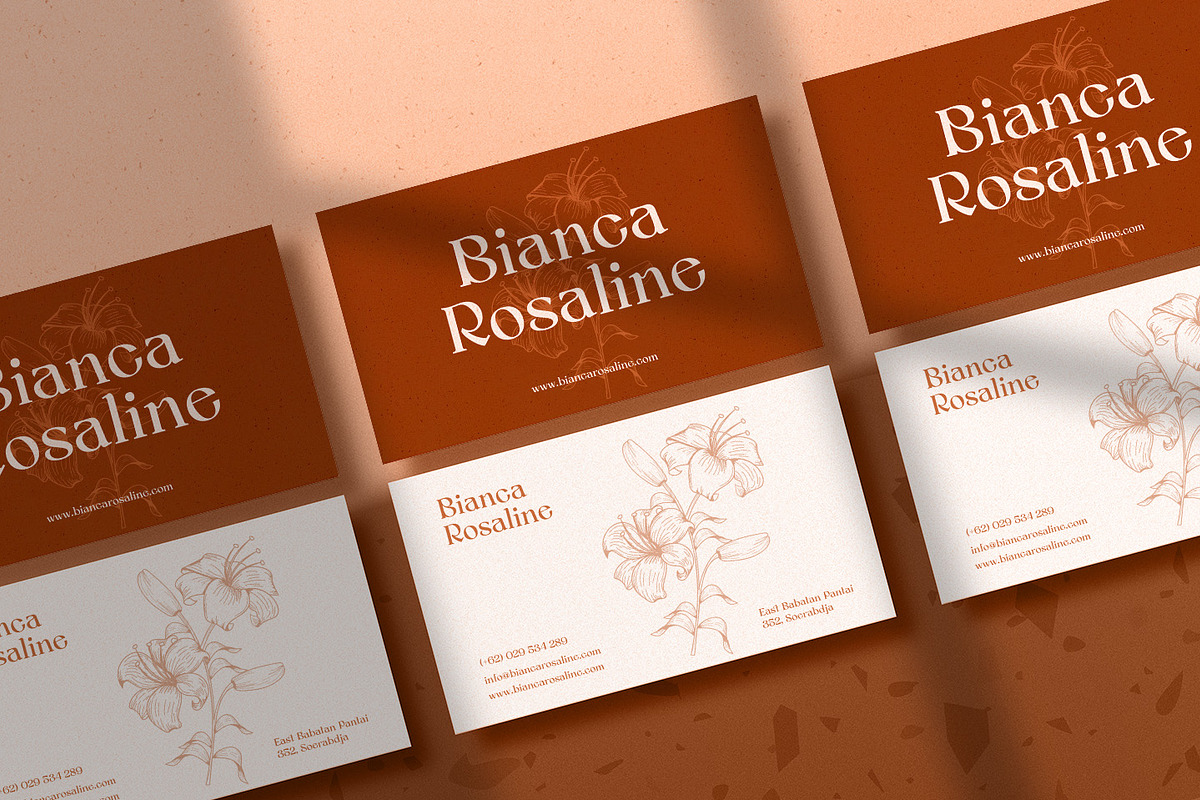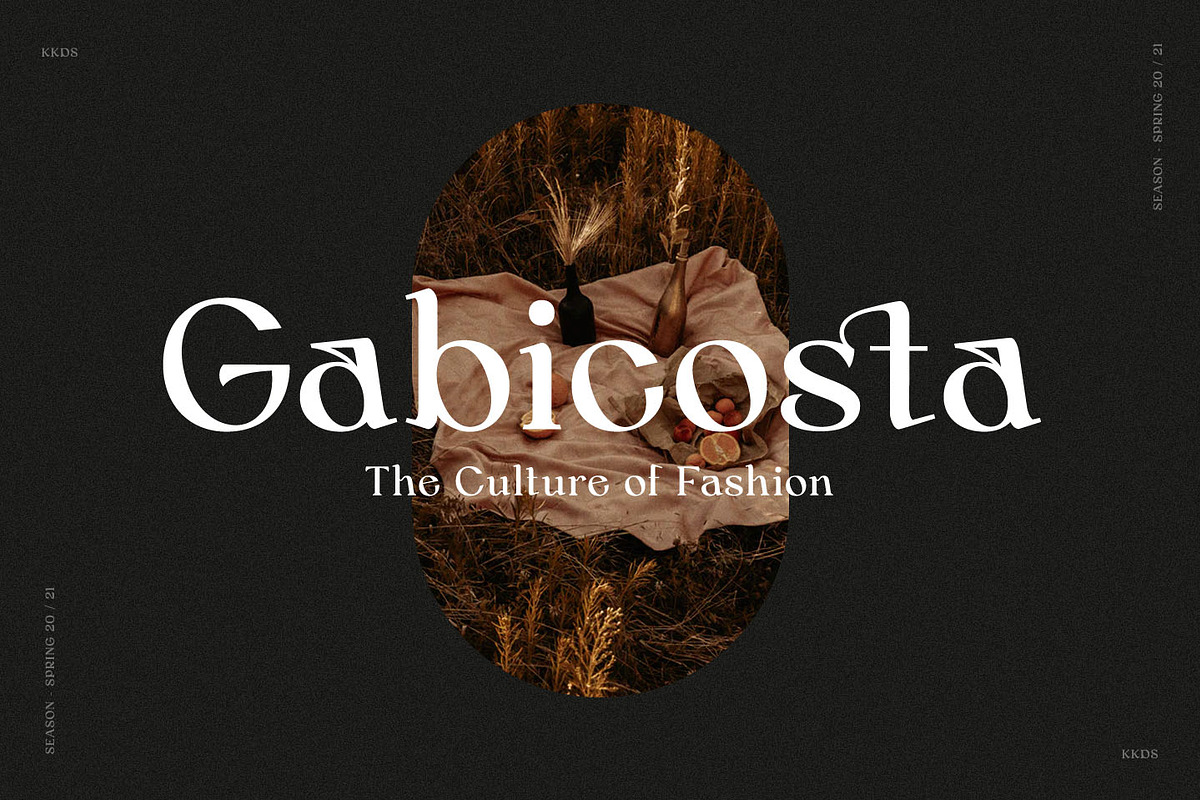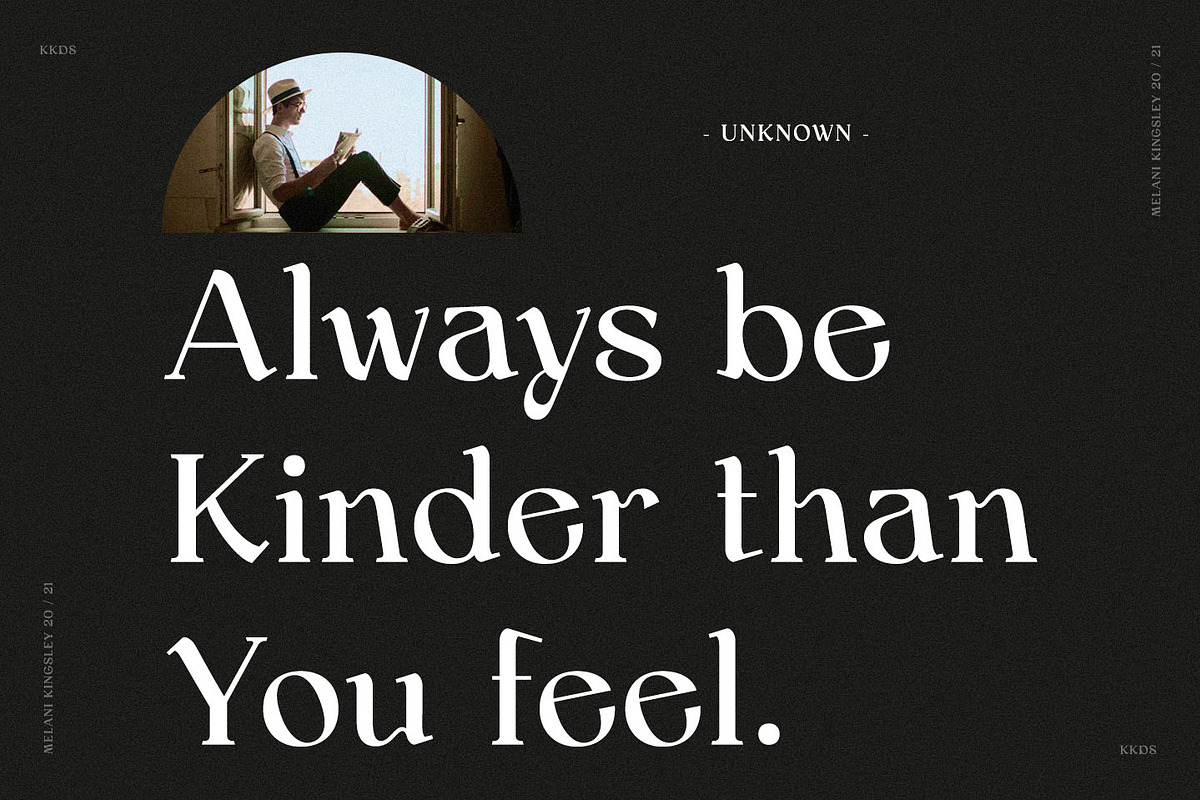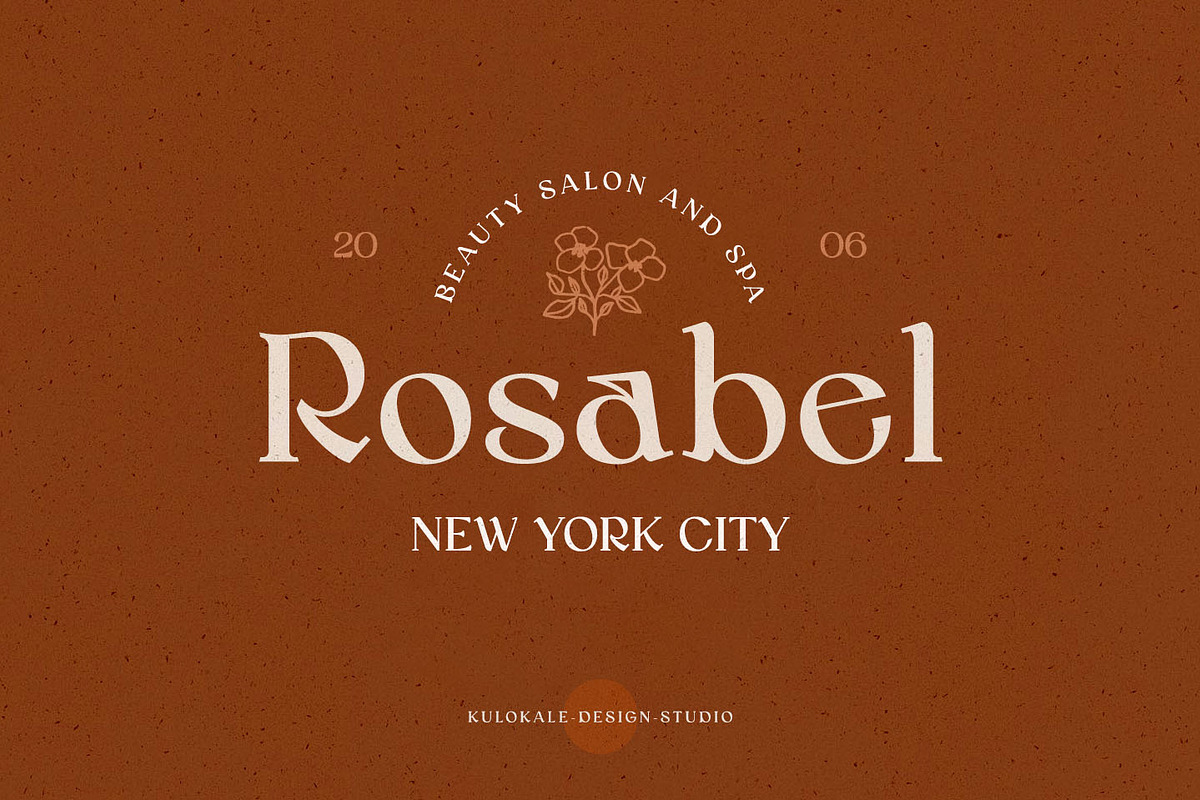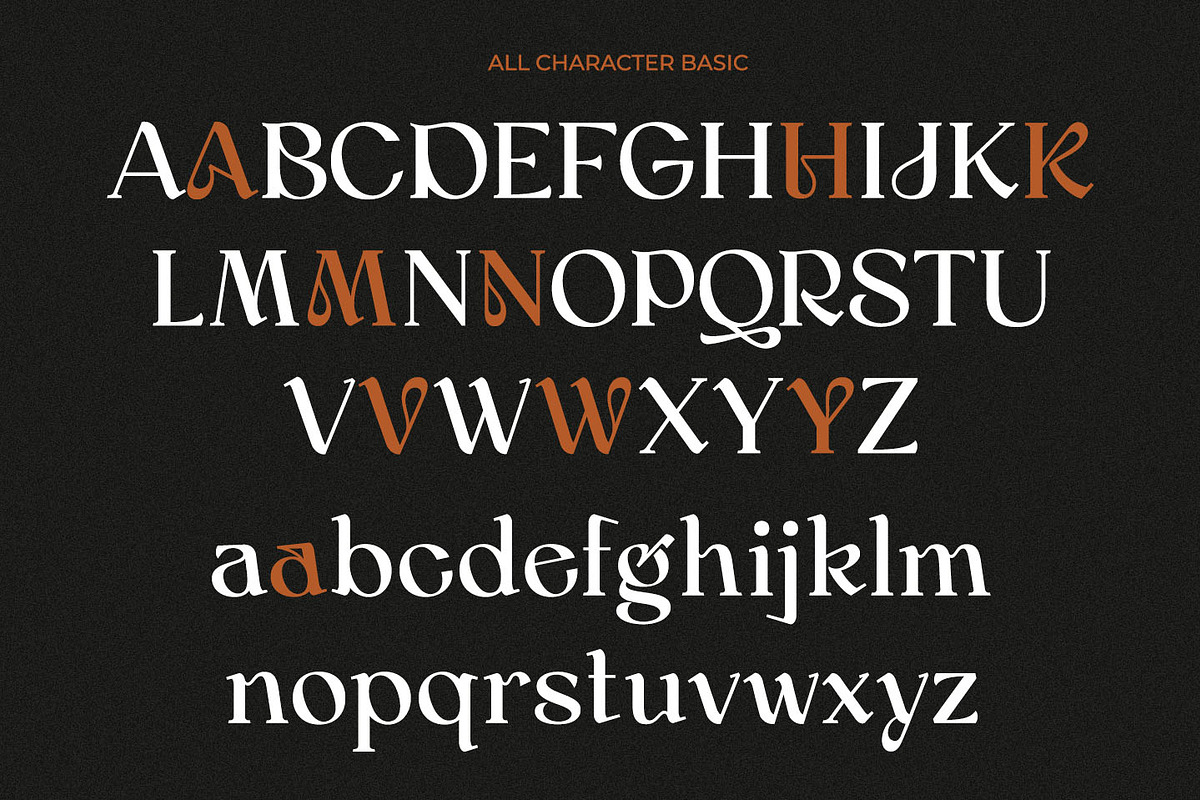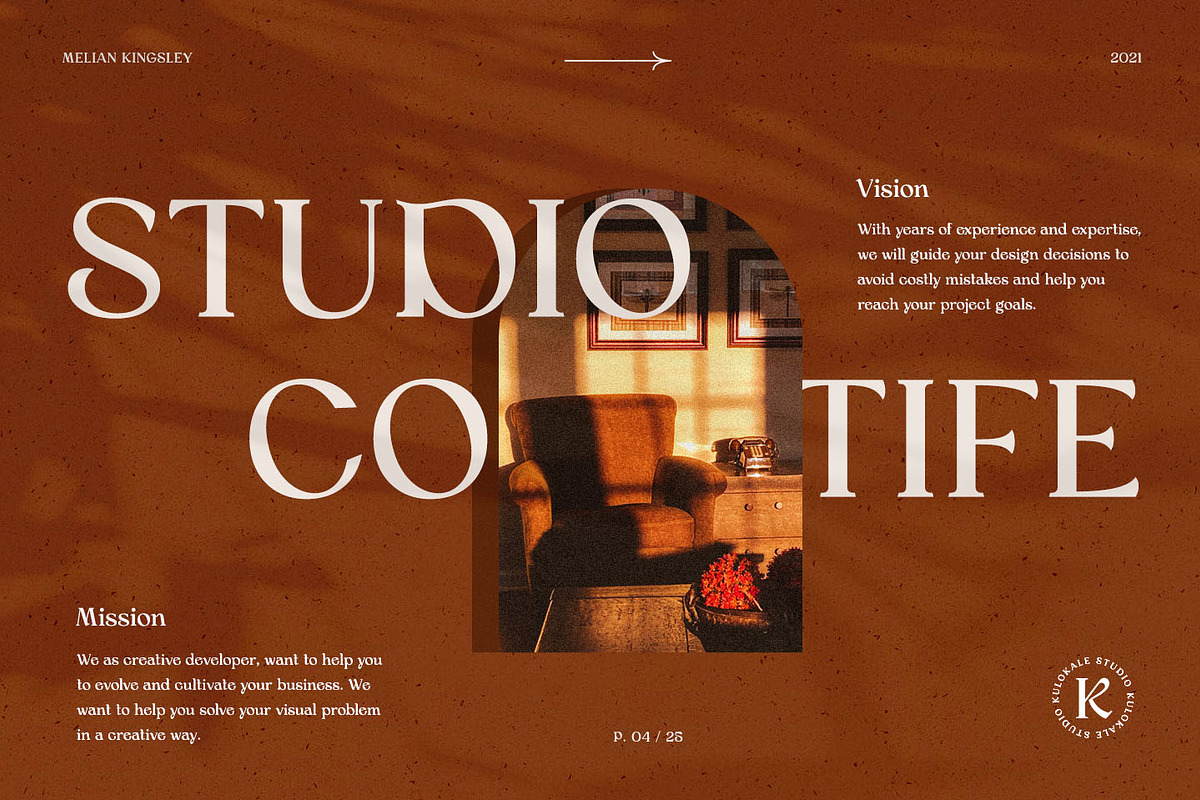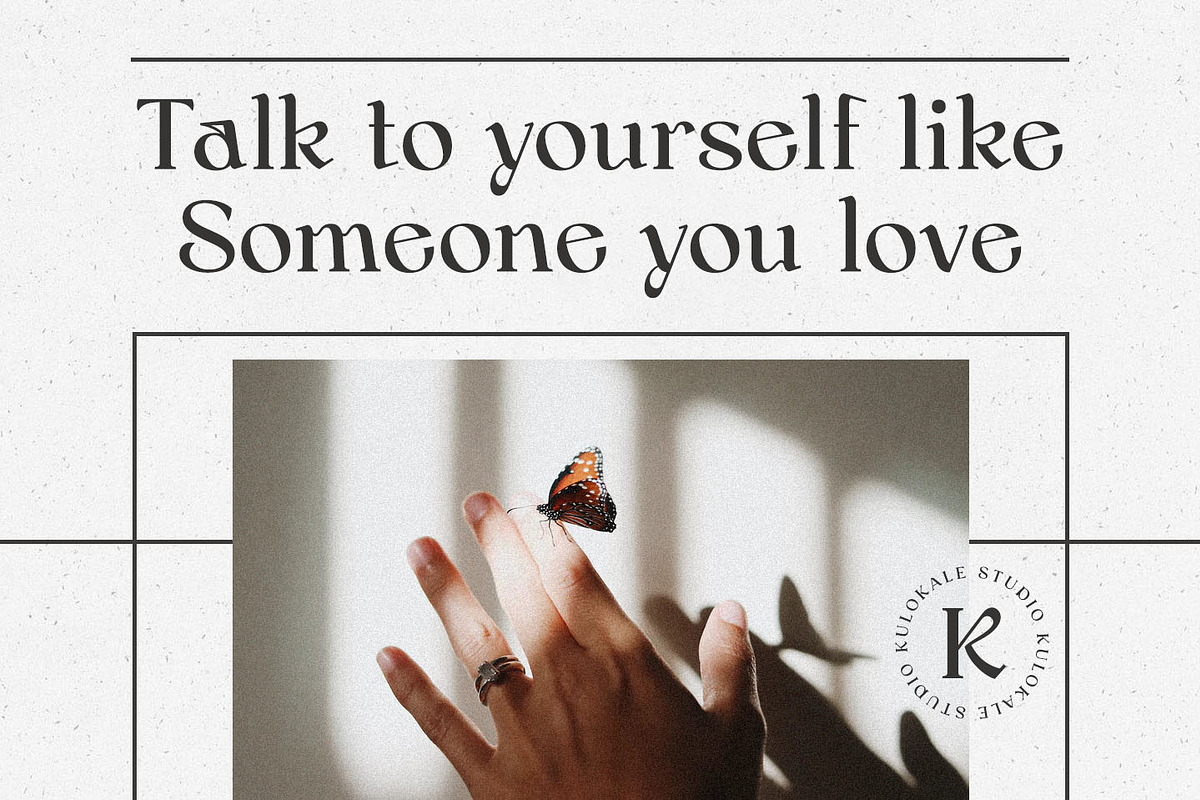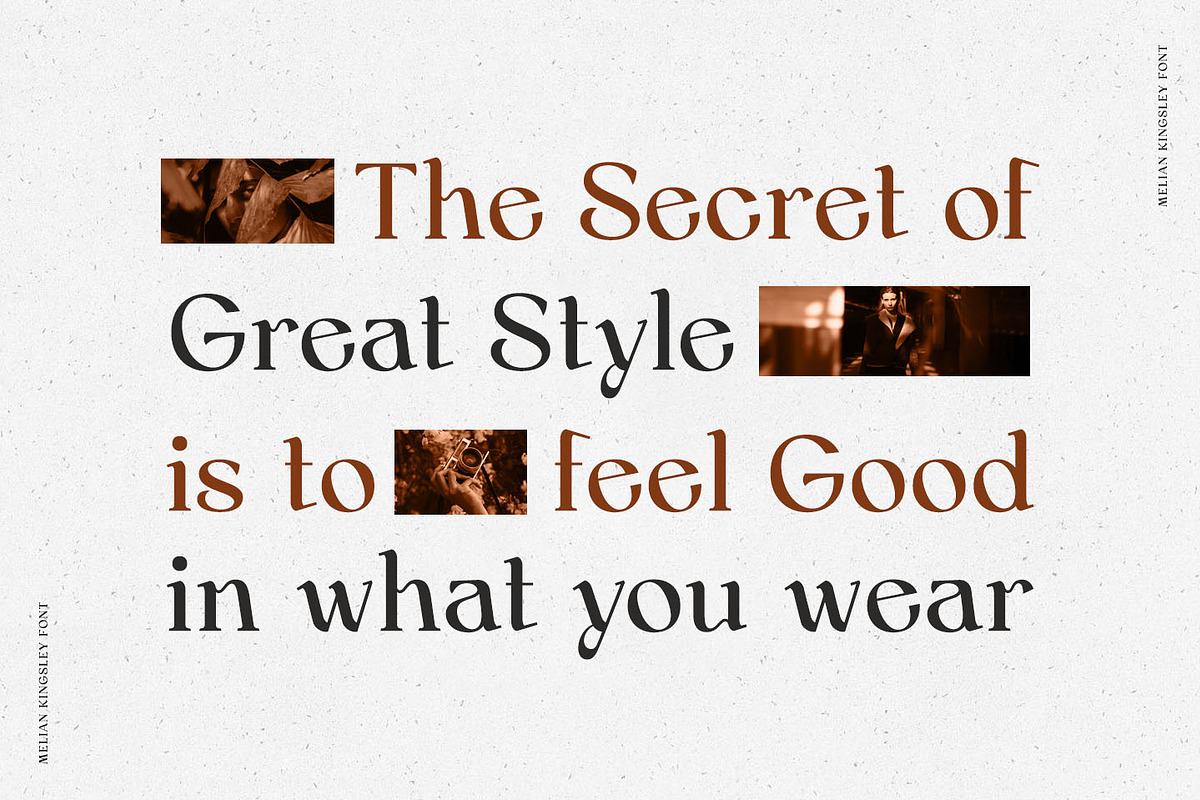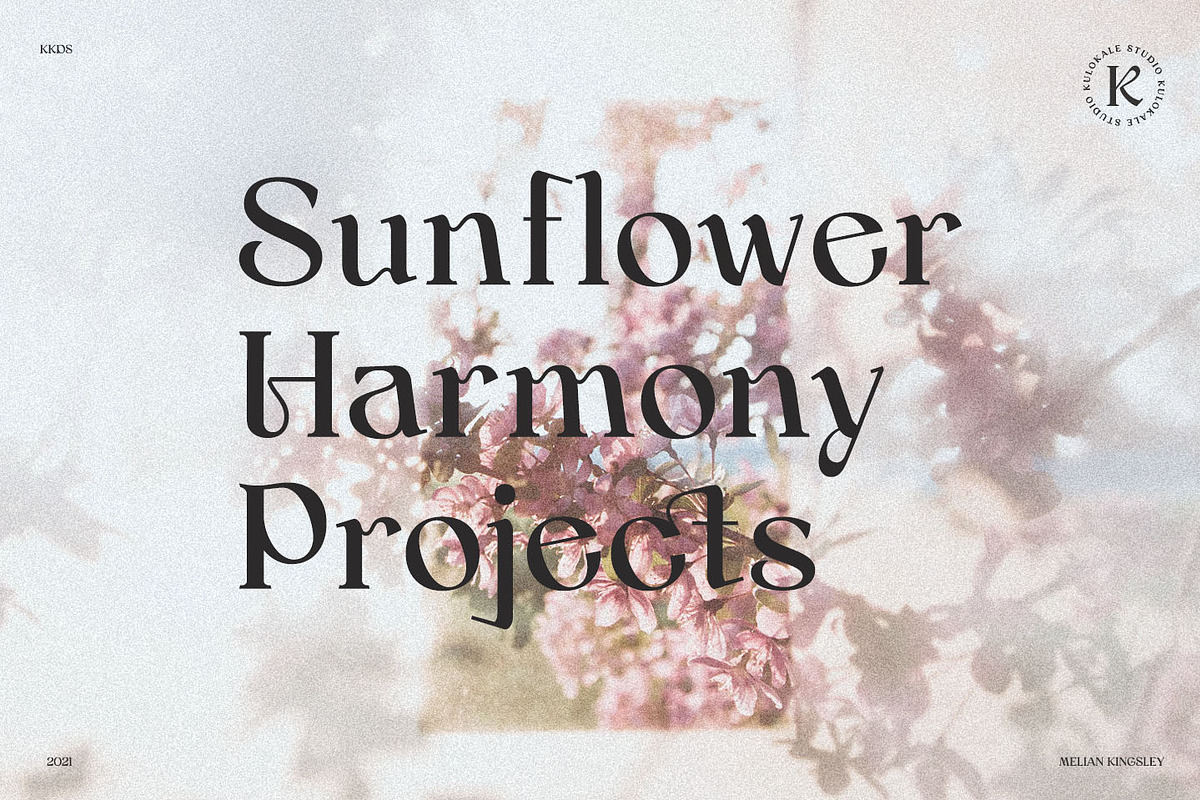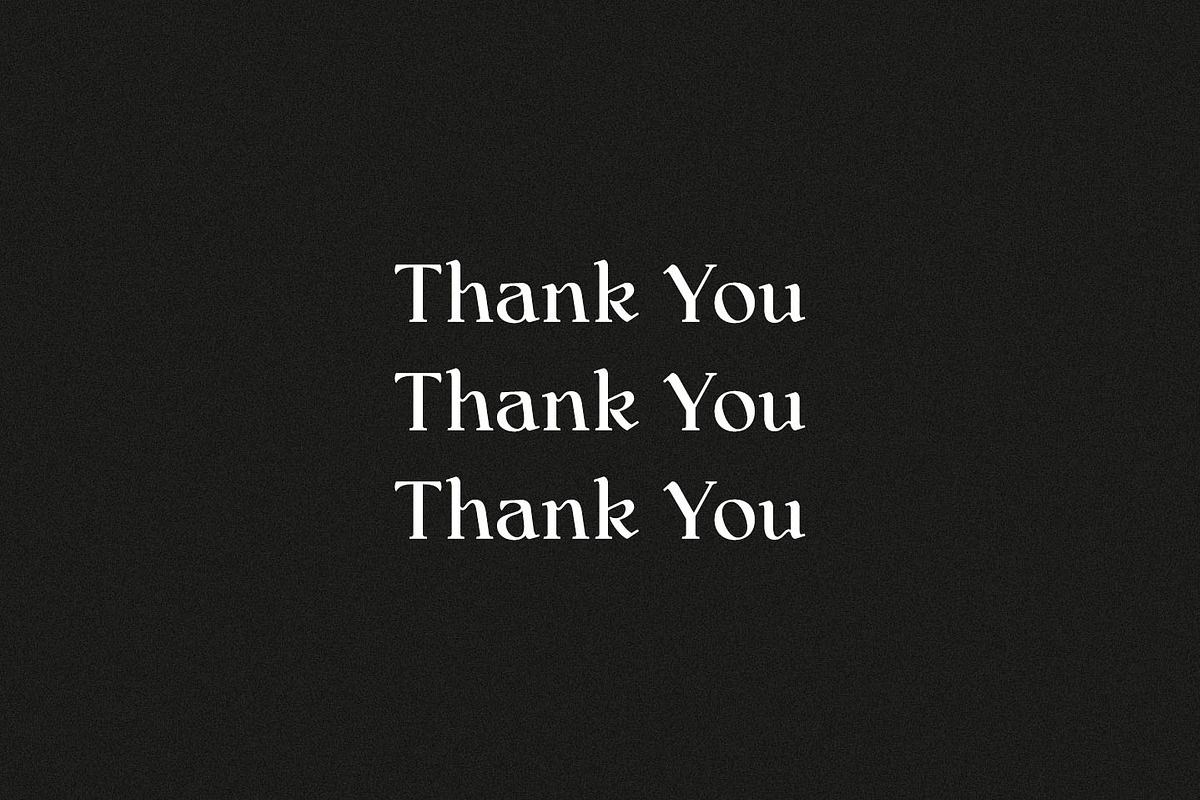
Melian Kingsley - Modern Serif
Melian Kingsley is a modern and elegant serif font. Melian Kingsley is well-suited for advertising, branding, logotypes, packaging, titles, headlines and editorial design. This font comes in two styles, Regular and Oblique Version.